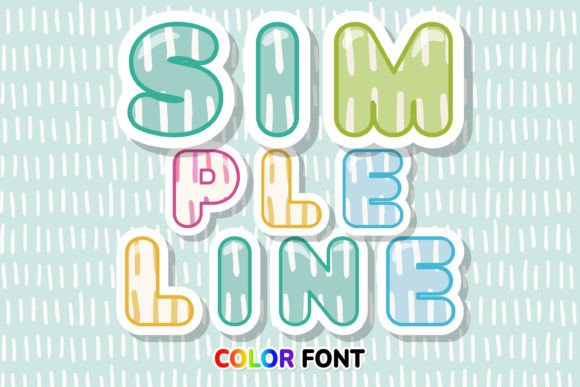
Introducing Simple Line Font: The Color Explosion That Will Ignite Your Designs!
Unleash your creativity with Simple Line, the extraordinary color font that's sure to make a lasting impression. This captivating font, meticulously crafted by JUSTTYPE, is a symphony of colors and patterns, ready to elevate your designs to new heights. With its unique Dash Pattern style, Simple Line is not just a font; it's an artistic masterpiece that will transform your creations into eye-catching visual spectacles.
Whether you're a seasoned designer or just starting out, Simple Line is the perfect choice for adding a touch of magic to your projects. Its vibrant hues and intricate patterns make it ideal for custom designs, DIY crafts, and any endeavor that calls for a dash of color and creativity. From logos and posters to invitations and social media graphics, Simple Line will add a touch of enchantment to every project you undertake.